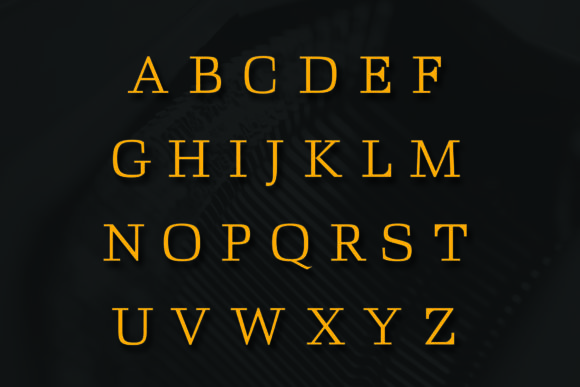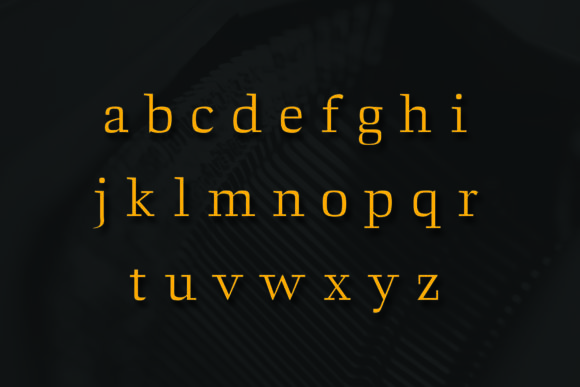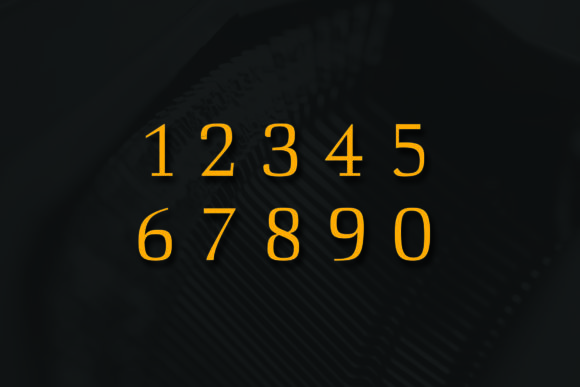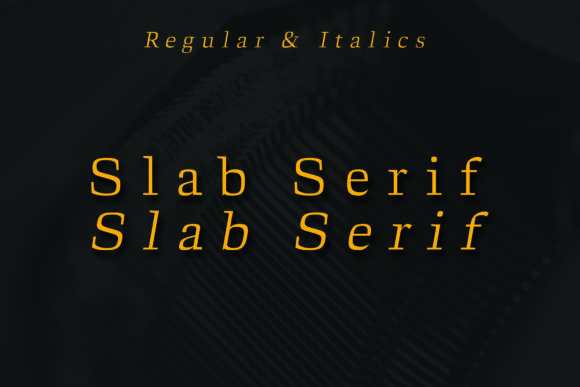
Discover the Timeless Elegance of Archibald Font
Have you ever found yourself pouring over a beautifully designed book or magazine, and suddenly, you’re inspired to create something new? That’s exactly what happened to me the first time I laid eyes on the Archibald Font. Its sophisticated slab serif design had me hooked, and I knew I had to learn more.
Archibald Font is a masterclass in elegance and refinement, perfect for designers looking to add a touch of class to their projects. Whether you’re working on a high-end branding project or a luxurious publication, this font is sure to make a lasting impression. With its unique charm and versatility, the Archibald Font is a valuable addition to any designer’s toolkit.
- Size: The font family includes multiple weights, ranging from Extra Light (100) to Extra Bold (800).
- Unique Characteristics: Features a classic, elegant design with subtle flair and ornate details, perfect for formal or luxurious designs.
- Language Support: Supports a wide range of languages, including Latin-based languages, Cyrillic, and Greek.
Archibald Font Review
Overall, I think Archibald Font is a solid choice for designers looking for a classic, elegant look. ✨ The font’s refined aesthetic and high x-height make it perfect for body text, while its unique flair makes it stand out in headlines. ✨ The font’s range of weights and styles offers flexibility for various design projects.
Here are some specific strengths and weaknesses I’ve observed:
- ✨ Archibald Font has excellent legibility, making it suitable for long blocks of text.
- ✨ The font’s unique design elements, such as its swashes and ornaments, add a touch of sophistication to designs.
- ⚠️ However, Archibald Font may not be the best choice for digital screens, as it can appear slightly pixelated at smaller sizes.
- ⚠️ The font’s high contrast between light and dark areas can make it difficult to read in certain lighting conditions.
Overall, I think Archibald Font is a great choice for designers working on print projects or those who need a classic, elegant look. However, its limitations make it less suitable for digital projects. With some careful consideration of its strengths and weaknesses, Archibald Font can be a valuable addition to any designer’s toolkit.
Archibald Font is a great choice for:
- Book covers and publishing materials
For the most effective use of Archibald Font, keep the following tips in mind:
- Use it for headings and titles to create a strong visual impact.
- Pair it with a clean and simple font for body text.
Archibald Font Creative Projects
Project 1: Vintage-Style Poster
Create a visually appealing poster using the Archibald Font for a unique, vintage-style design. This project is perfect for promoting a film, music concert, or art exhibition.